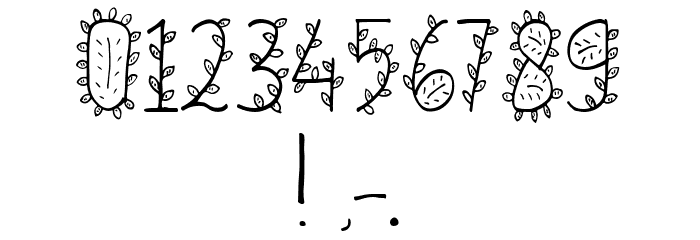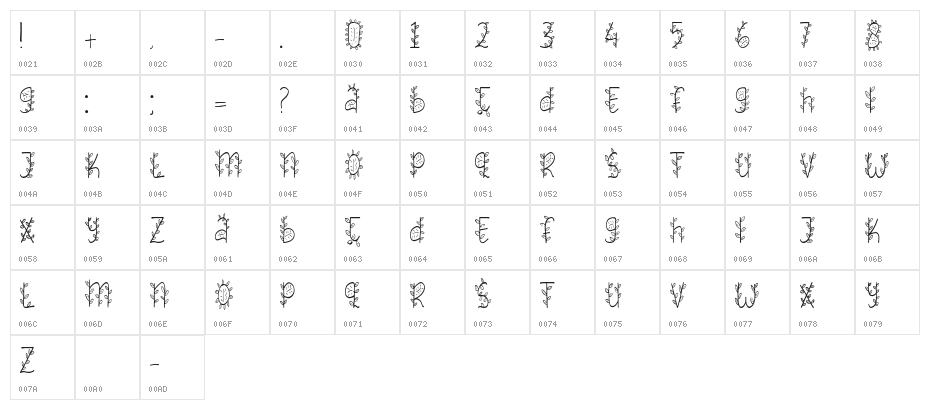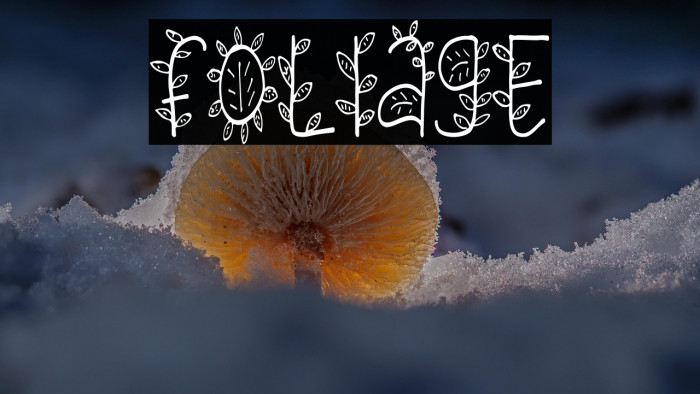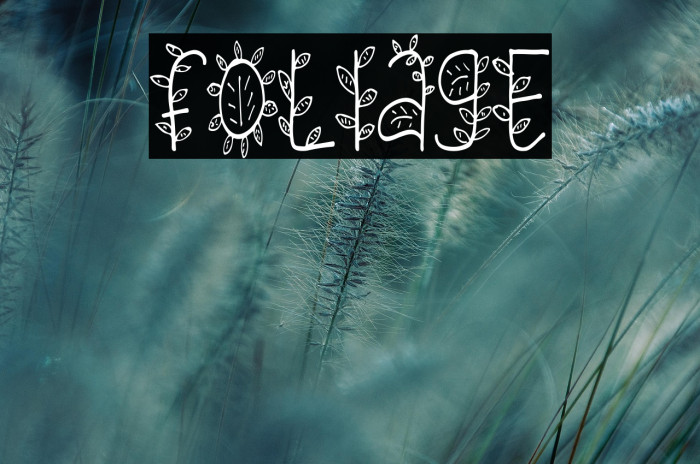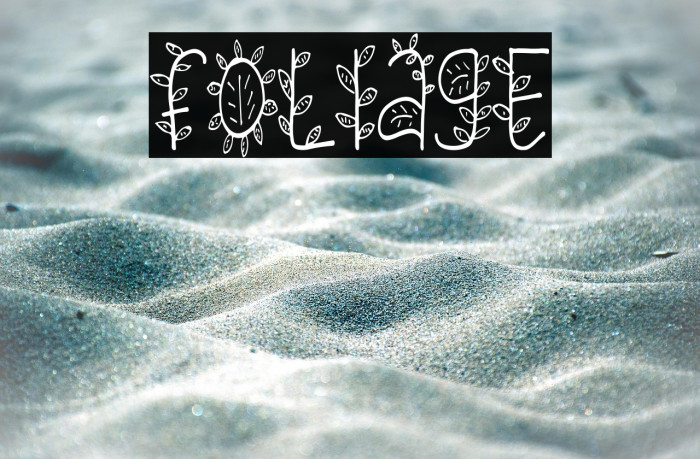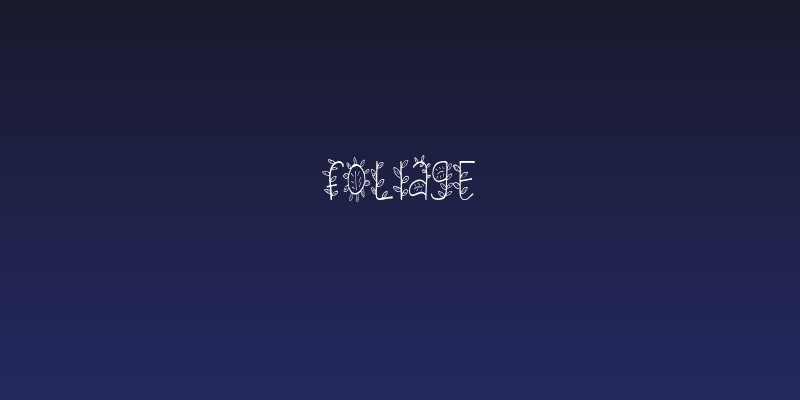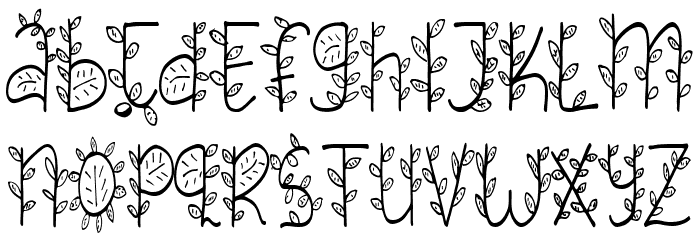
FOLIAGE Font
FOLIAGE Description
This whimsical and decorative font features letters adorned with intricate leaf and vine motifs, giving it a natural and organic feel. Each character is uniquely designed with foliage elements that wrap around the strokes, creating a playful and artistic appearance. The font maintains a consistent style throughout, with a moderate level of detail that makes it suitable for eye-catching designs. The combination of curves and straight lines adds a dynamic quality, while the embellishments provide a sense of movement and growth. This font is perfect for projects that require a touch of nature or a handcrafted look.
| Proposed Projects | Ideal for eco-friendly branding, garden-themed invitations, children's book covers, and artistic posters. |